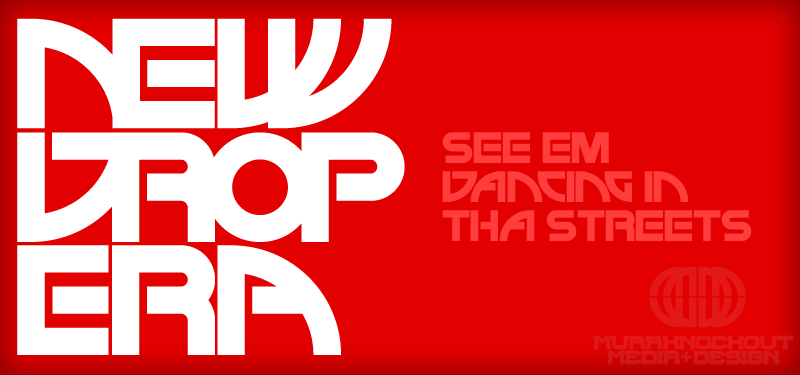
Preview and download New Drop Era Font. Created by MuraKnockout Media + Design in Techno Various styles with 100% Free license.
Check out my new Font Blog to stay up to see when I release new fonts! http://murafonts.blogspot.com/ ----------------------- A font created for my friend and producer the New Drop Era. This font is intended for logo type. I came up with a logo design and decided to make a complete font out of it. Check out the New Drop Era on SoundCloud: http://soundcloud.com/newdropera This is free to do with whatever you wish, personal or commercial. Just don't claim ownership, sell it, redistribute it, or be a jerk with it. It might be cool if you use the font to either credit MuraKnockout Media or Michael Muranaka, or show me how you used it! Enjoy! |